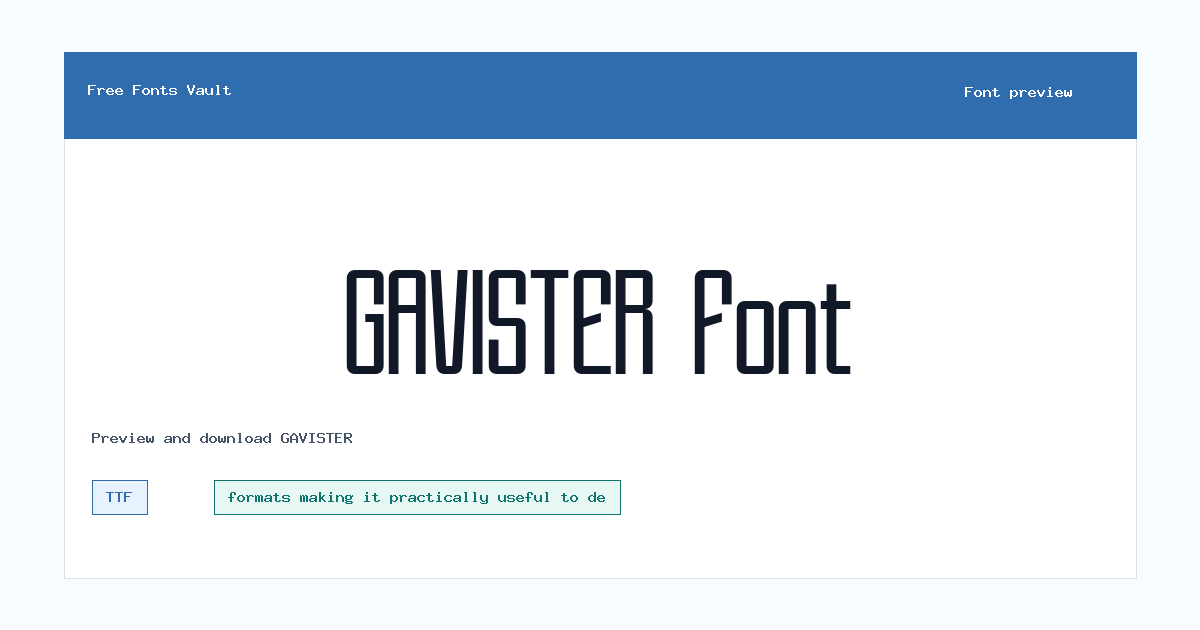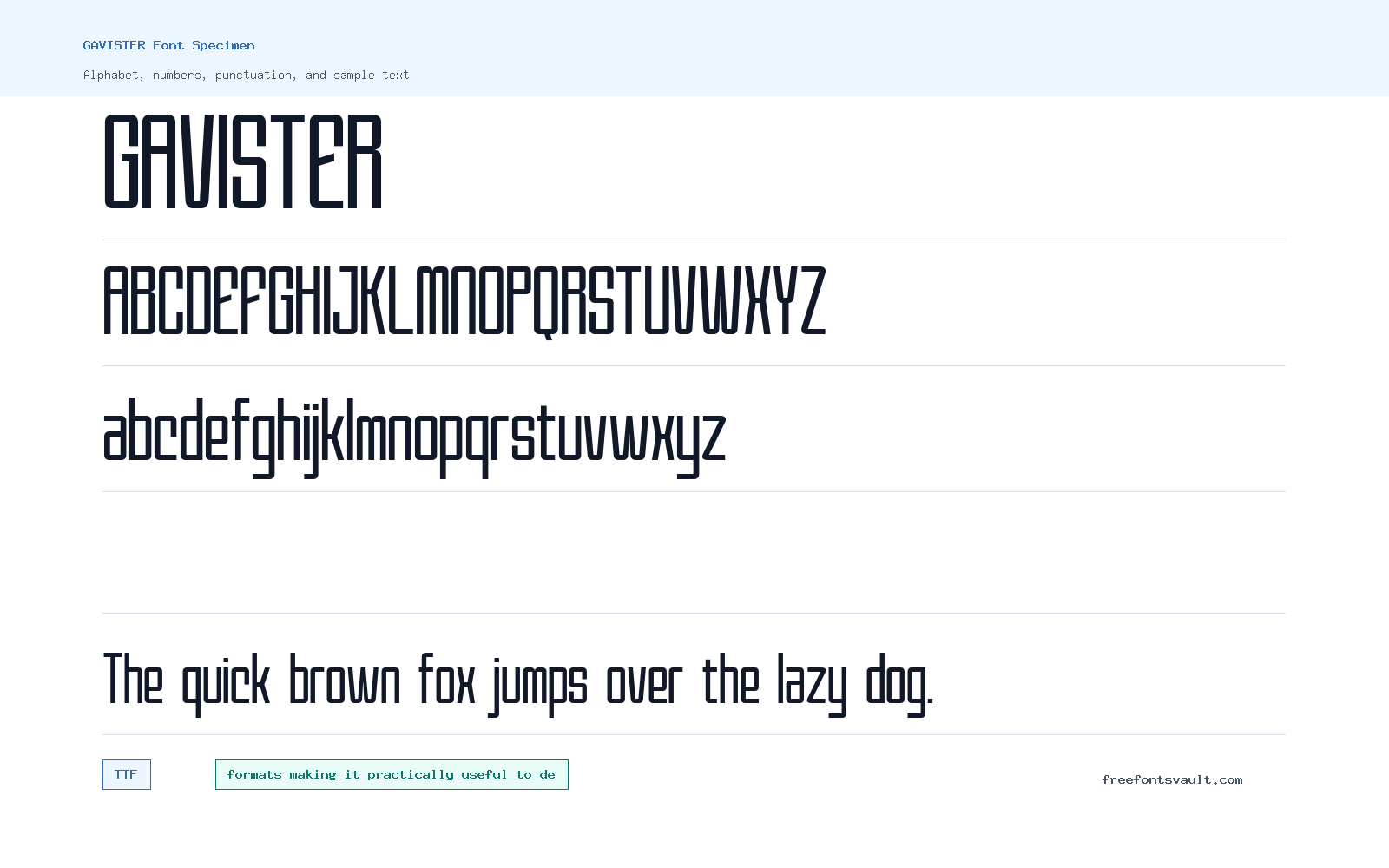
GAVISTER
GAVISTER font.
GAVISTER is an ultra-condensed sans serif display font with a tall, narrow build made for short text that needs a strong presence without using much horizontal space.
About GAVISTER
GAVISTER works best where the type needs to feel bold and compact at the same time. Its condensed letter shapes make it useful for titles, posters, social graphics, labels, covers, and other display layouts where space is limited but the words still need to stand out.
For a better result, build the layout around the shape of the word. GAVISTER has a compressed rhythm, so it can make short names feel taller and more graphic. It is less suitable for sentences, small navigation text, or anything where the reader needs to move quickly through a paragraph. In most designs, it works strongest as the main title with quieter supporting type around it.
- Ultra-condensed sans serif display style
- Narrow letter shapes that help fit bold display words into limited space
- Works best with generous size, careful spacing, and simple supporting typography
- Posters, flyers, and event headlines
- Logos, packaging concepts, social posts, and short display text
- Compact cover titles, channel thumbnails, and single-word layouts that need a tall bold voice
GAVISTER is credited to FLAWLESSANDCO / FlawlessAndCo.
What kind of font is GAVISTER?
GAVISTER is an ultra-condensed sans serif display font. It is built for bold, narrow headline-style text rather than long paragraphs.
Where does GAVISTER work best?
It works best in short display uses such as posters, titles, covers, packaging concepts, social graphics, and logo drafts.
Who designed GAVISTER?
GAVISTER is credited to FLAWLESSANDCO / FlawlessAndCo.